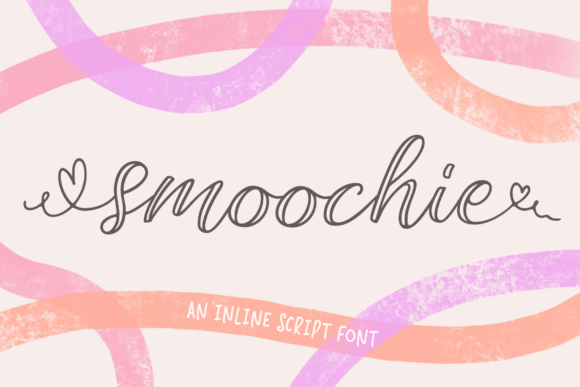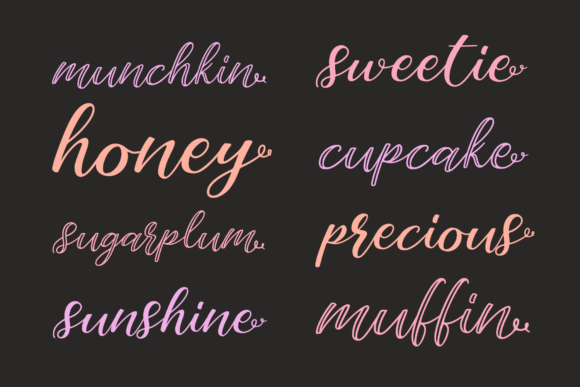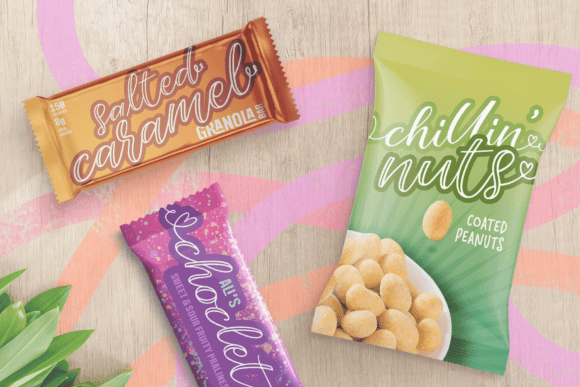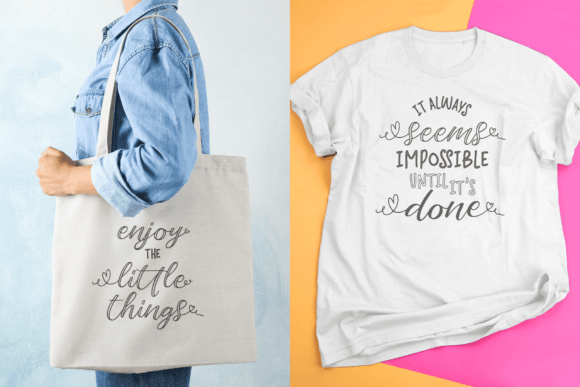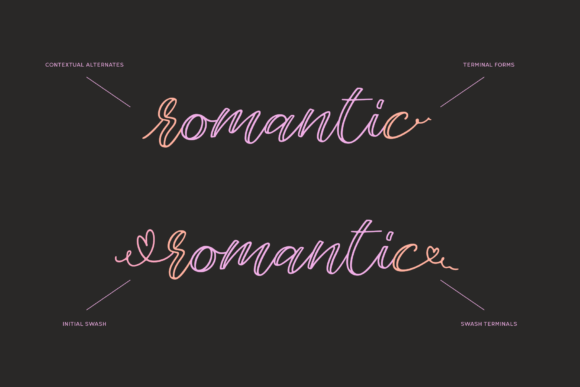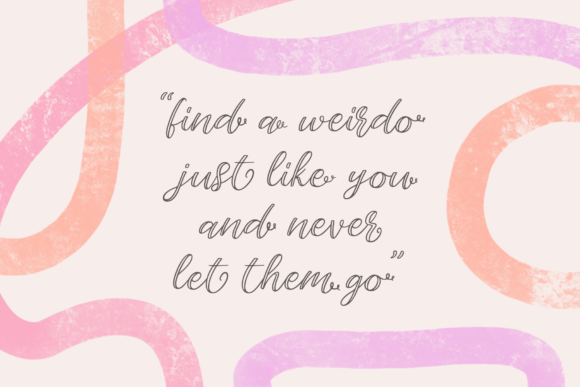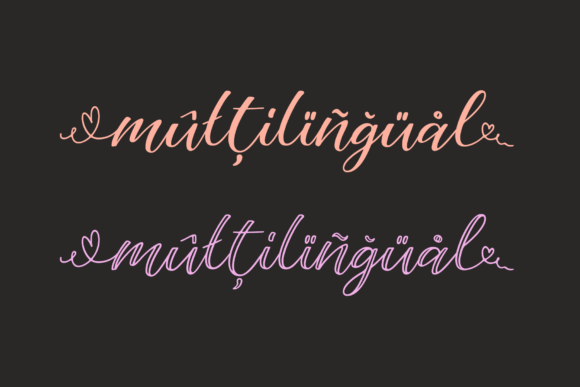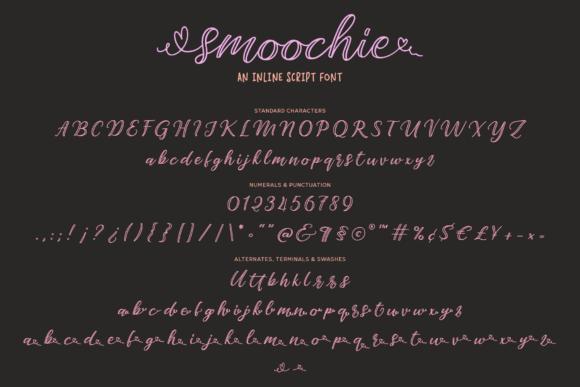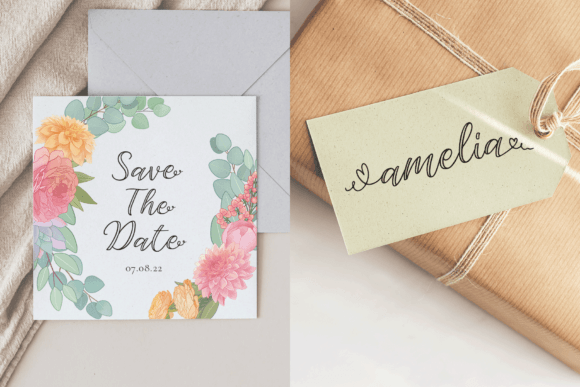
Smoochie Font
About Smoochie Font
**Smoochie: A Playful Inline Script Font with Heartfelt Charm**
Unleash the playfulness and heartfelt charm with Smoochie, a delightful inline script font adorned with curly terminals and heart-shaped swashes. This font is more than just a typeface; it’s an expression of cuteness and expressively feminine design. With its fun and unique characteristics, Smoochie is set to infuse your projects with a touch of whimsy and joy. Plus, with PUA encoding, accessing all the glyphs and swashes is a breeze, offering a seamless experience for your creative endeavors.
**Key Features of Smoochie:**
1. **Playful Inline Script:** Smoochie brings a playful inline script style that adds a dynamic and whimsical flair to your designs. The inline design creates visual interest, making it suitable for a variety of creative projects.
2. **Curly Terminals:** The curly terminals of Smoochie contribute to its fun and expressive nature. Each letter is crafted with playful curls, adding a sense of movement and charm to the font’s overall aesthetic.
3. **Heart-Shaped Swashes:** The heart-shaped swashes are a delightful addition to Smoochie, bringing a touch of love and warmth to the font. These swashes add a romantic and feminine element, making it perfect for projects that celebrate love and joy.
4. **Cute and Expressively Feminine:** Smoochie is designed to be cute, playful, and expressively feminine. It becomes a charming companion for projects that require a lighthearted and delightful touch, making it ideal for various design contexts.
**Ideal Uses for Smoochie:**
– **Invitations and Greeting Cards:** Smoochie adds a playful and heartfelt touch to invitations and greeting cards, making them memorable and delightful.
– **Social Media Graphics:** Create eye-catching social media graphics with Smoochie to infuse your posts with a dose of cuteness and charm.
– **Branding and Logos:** The whimsical nature of Smoochie makes it a unique choice for branding and logos, especially for businesses that want to convey a playful and feminine image.
– **Stationery and Gifts:** Use Smoochie for stationery and gifts to add a personalized and joyful touch to your creations.
– **Special Occasion Designs:** Whether it’s birthdays, anniversaries, or other special occasions, Smoochie brings a celebratory vibe to your designs.
**Conclusion: Spread Joy with Smoochie**
In conclusion, Smoochie is the font that spreads joy, cuteness, and expressively feminine charm. Whether you’re creating invitations, social media graphics, or branding materials, let Smoochie be the font that infuses your projects with a playful and heartfelt spirit. With its curly terminals and heart-shaped swashes, Smoochie becomes a delightful companion for a wide range of creative endeavors.